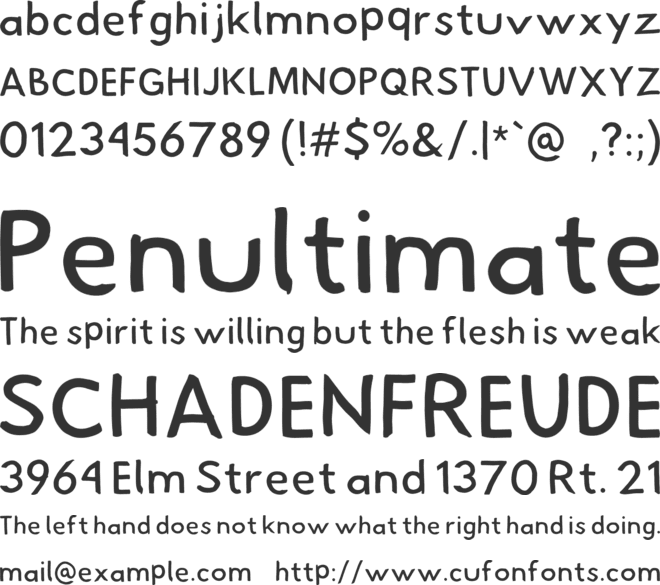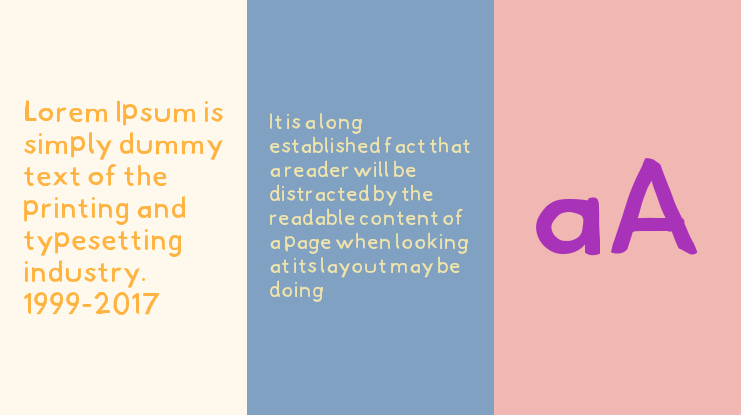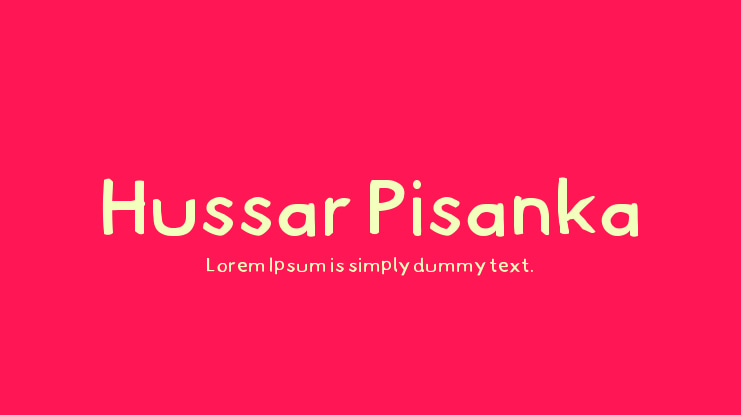
Hussar Pisanka Font Family
Robert Jablonski
Hussar Pisanka (Easter Egg) is a Handwriting style relative of Hussar, with 4 weights, plus italics and outline weights.